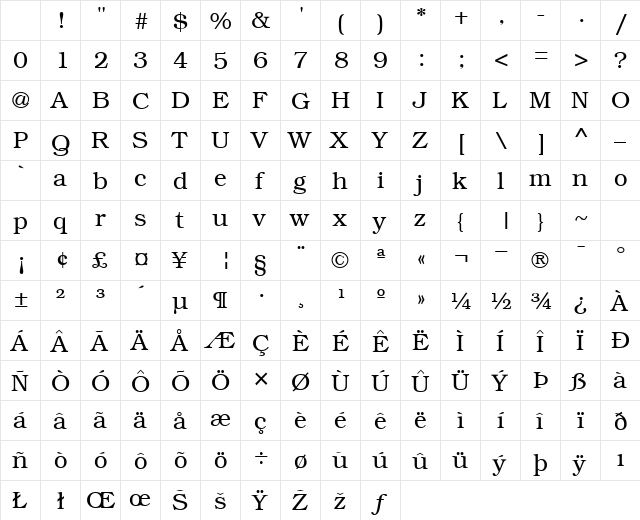
Complete Bookmaker Regular glyph index. Displaying only characters natively supported by Bookmaker Regular font.
Bookmaker is a composed and adaptable typeface that performs quietly and consistently across a wide range of design contexts.